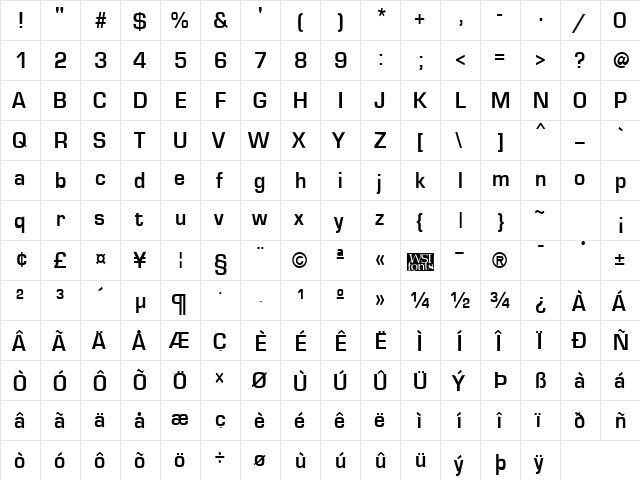
EuroseCond Bold
Design Context for EuroseCond Typeface
EuroseCond offers clean, dependable letterforms without strong stylistic allegiance, making it a practical choice for designers who need flexibility. Its bold stroke weight gives it real presence on the page. Its narrow stance lets it pack a punch even in space-constrained designs.